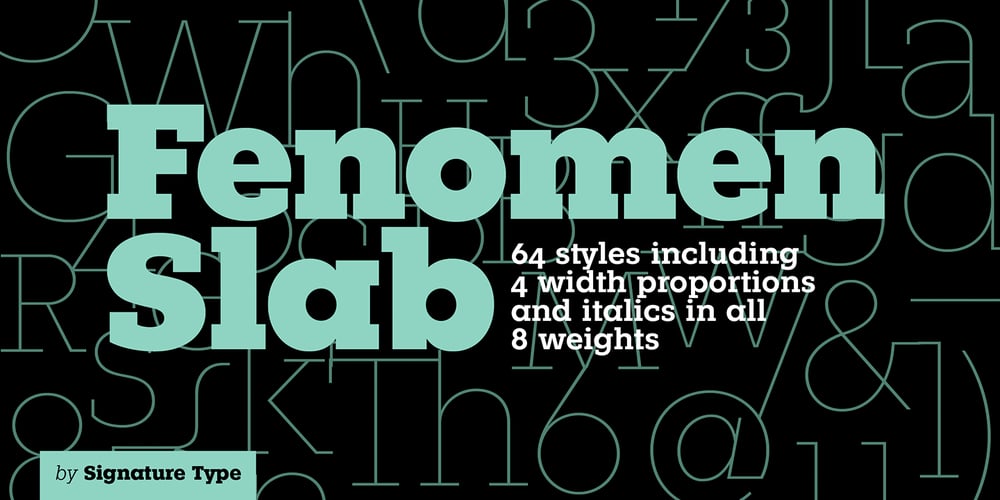
Fenomen Slab Font Family was designed by Rostislav Vaněk, Tomáš Nedoma and published by Signature Type Foundry. Fenomen Slab contains 64 styles and family package options. The geometrical drawing of Fenomen Slab follows the guidelines set by our other font family Fenomen Sans. It is a perfect companion of Fenomen Sans, as well as being a standalone font family capable of delivering its own expression and aesthetics. The set contains four width proportions – Normal, SemiCondensed, Condensed and ExtraCondensed in eight weights ranging from Hairline to Black. Every font of the family contains four types of numerals, small caps, ligatures and contextual alternates. The typeface was developed between the years 2014–2017 and was subjected to a series of tests for the fluent legibility of all fonts even in extreme conditions. Narrow fonts provide this set with the maximum use including newspaper typesetting. The typeface has an elegant, delicate design in thin fonts and sufficient legibility in bold. Mutual contrast produces great creative tension.Font name acronyms described:SCN = SemiCondensedCN = CondensedXCN = ExtraCondensed